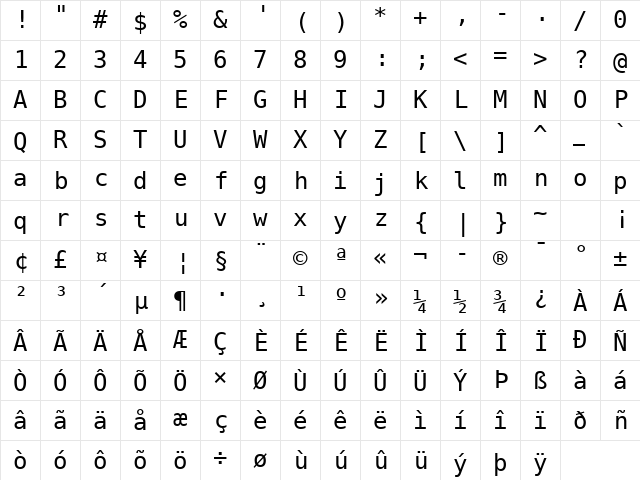
Complete BitstreamVeraSansMono Nerd Font Mono Roman glyph index. Displaying only characters natively supported by BitstreamVeraSansMono Nerd Font Mono Roman font.
BitstreamVeraSansMono Nerd Font Mono uses fixed-width spacing throughout, giving it the structured, systematic character associated with coding environments and technical documentation.
Pro Tip: Use BitstreamVeraSansMono Nerd Font Mono with slightly increased line-height for extended reading - fixed-width spacing can feel dense in longer passages without extra breathing room.
Who designed the BitstreamVeraSansMono Nerd Font Mono Roman font?
This font was published by Bitstream Inc.. Check the technical specs section for copyright and designer details.